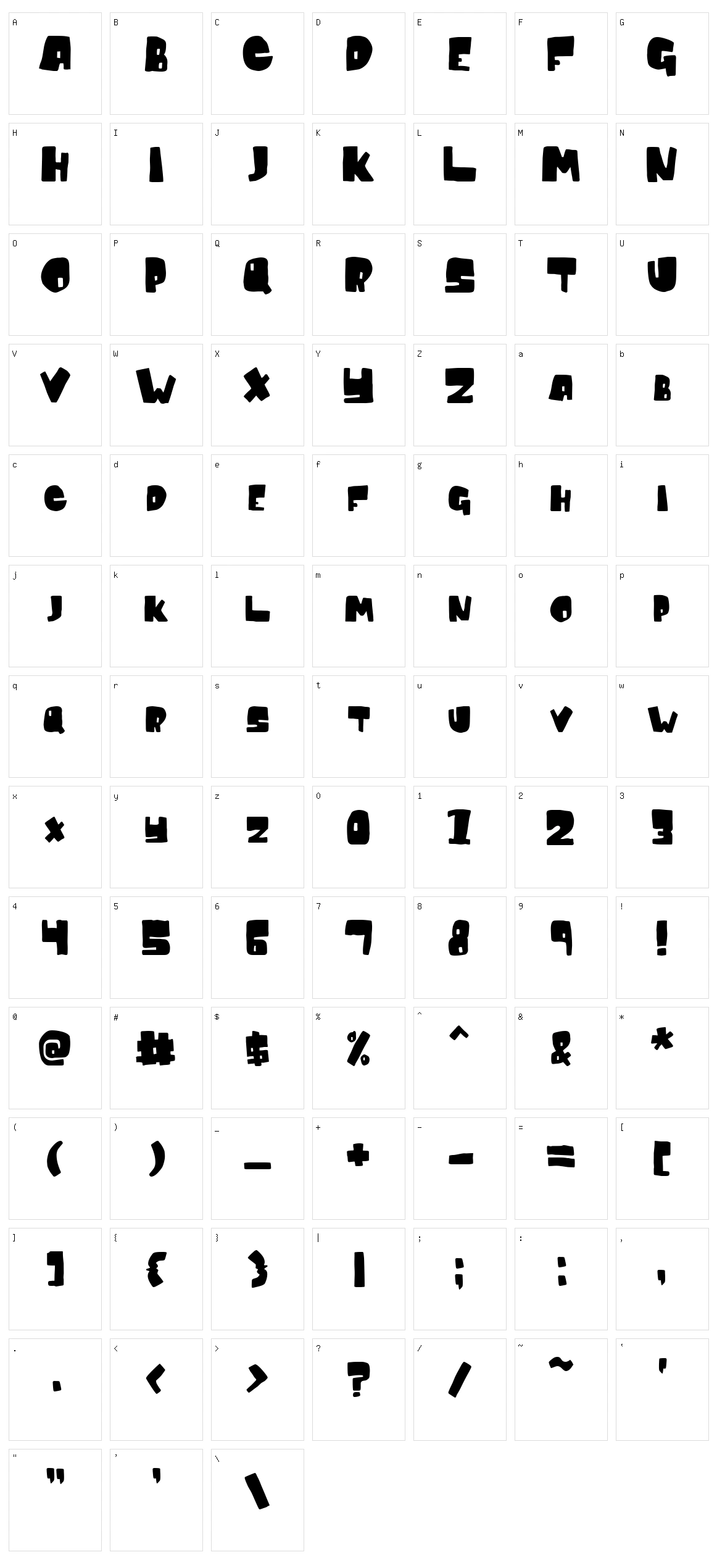
The free font Conventional Wisdom is carefully designed by Divide by Zero, showcasing a thoughtful balance of creativity and usability and falls under the Cartoon font style. When you download the ZIP file, it contains only 22.86 KB of font files, making it lightweight and quick to download. Please review the license details below to understand permitted usage and distribution rights. If license information is not available, we recommend using this font for personal projects only or contacting the author directly for commercial usage permissions.